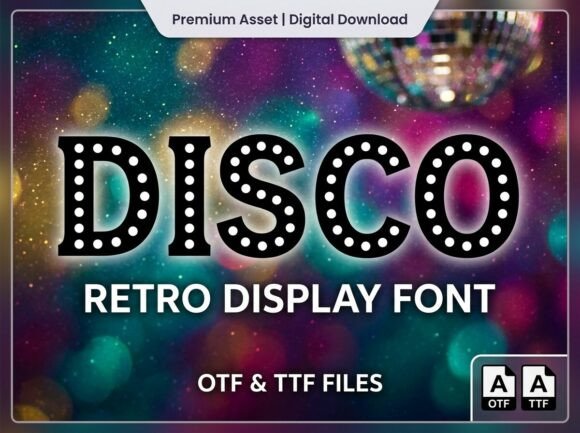
Get Ready to Shine: Introducing the Disco Font
Have you ever been to a retro-themed party and felt the infectious energy of the dance floor? The flashing lights, the pulsating beat, and the excitement in the air all come together to create an unforgettable experience. As a designer, you know that capturing this essence in your work can be a challenge, but what if you had the perfect tool to help you do just that?
Enter the Disco Font, a premium display font that embodies the spirit of retro nightlife. With its bold slab-serif typeface and marquee bulb dots, this font is sure to electrify your layouts and leave a lasting impression. Whether you’re designing a vintage nightclub logo or a high-energy concert poster, the Disco Font is an exceptional centerpiece asset that’s sure to get your creative juices flowing.
Disco Font Key Features
- Unique Characteristics: Disco Font features a distinctive, retro-futuristic aesthetic with bold lines, rounded shapes, and a vibrant color palette, perfect for creating eye-catching designs.
- Customization Options: Disco Font offers advanced OpenType features, such as ligatures, swashes, and stylistic sets, allowing designers to customize the font to suit their specific needs.
Designer Review: Disco Font
Overall, I was excited to dive into the Disco Font, but my expectations were mixed. Let’s start with what works well:
- ✨ The font is indeed bold and eye-catching, making it perfect for retro or nostalgic projects.
- ✨ The font’s curves and rounded edges add a playful touch, ideal for creative or artistic designs.
- ✨ The font comes in a range of weights, from light to bold, giving designers flexibility in their projects.
- ⚠️ The font may be too flashy or overwhelming for more serious or professional designs.
- ⚠️ The font’s boldness may make it difficult to read in smaller sizes or in situations where readability is crucial.
- ⚠️ Some characters may not be as polished or refined as others, which can be a bit distracting.
Overall, I think the Disco Font is a great addition to any designer’s toolkit, but it’s essential to use it thoughtfully and in the right context. When used correctly, it can add a lot of personality and flair to a design. But when overused or misused, it can quickly become overwhelming. With a bit of restraint and creativity, I think the Disco Font can be a real showstopper.
The Disco Font is perfect for:
- Creating retro-inspired graphics and designs.
- Adding a touch of fun and playfulness to your text.
- Designing party invitations, posters, and flyers.